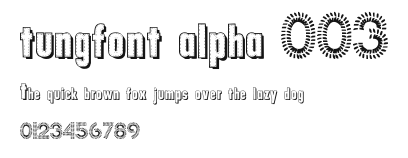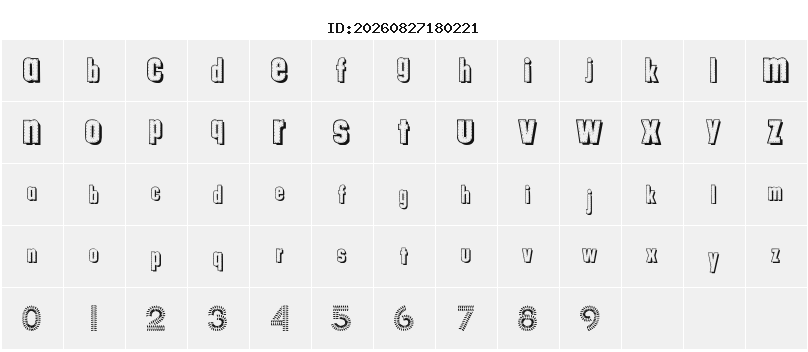
• Font Name: tungfont alpha 003
About tungfont alpha 003.ttf
tungfont alpha 003.ttf is a modern, elegant sans-serif font designed for ultimate readability and visual harmony. Perfect for branding, headlines, web design, and print materials.